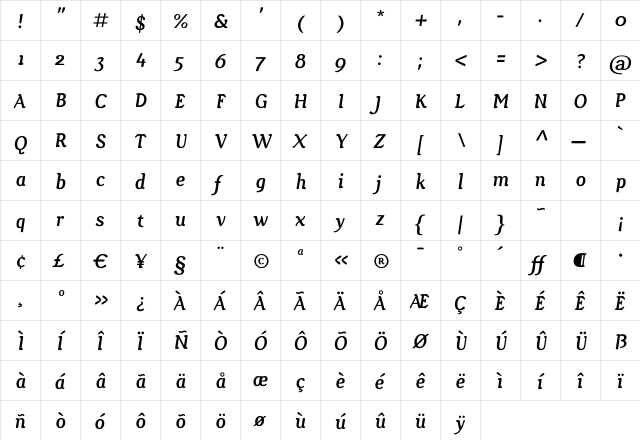
GopalRegular Italic Regular
Design Context for GopalRegular Italic Typeface
GopalRegular Italic offers clean, dependable letterforms without strong stylistic allegiance, making it a practical choice for designers who need flexibility. The slanted form adds forward momentum and visual energy.
Pro Tip: Try GopalRegular Italic for annotation and caption copy alongside an upright companion — the contrast in angle creates a dynamic but ordered typographic system.